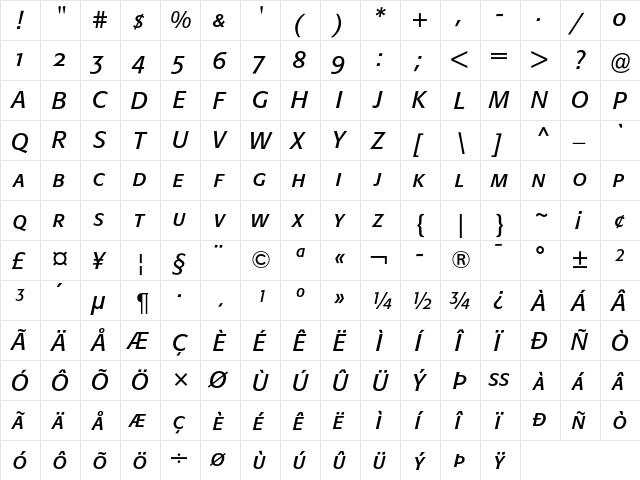
Formata Italic SC
Design Context for Formata Typeface
Formata is a composed and adaptable typeface that performs quietly and consistently across a wide range of design contexts. Its italic angle brings a sense of urgency and motion to the letterforms.
Pro Tip: Try Formata for annotation and caption copy alongside an upright companion — the contrast in angle creates a dynamic but ordered typographic system.